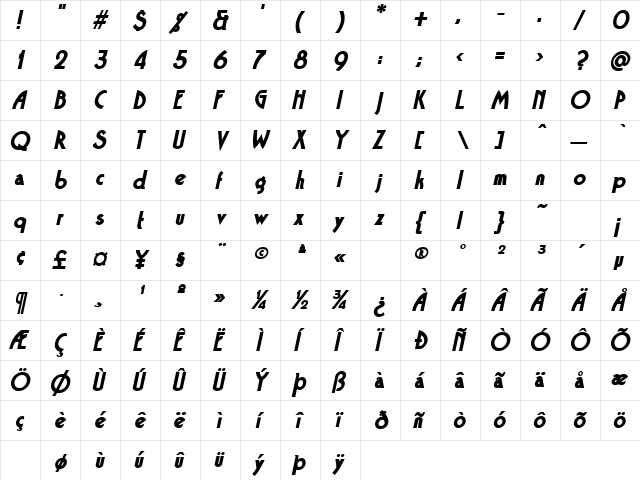
Bandstand BoldOblique
Bandstand offers clean, dependable letterforms without strong stylistic allegiance, making it a practical choice for designers who need flexibility. The slanted form adds forward momentum and visual energy. The heavy weight commands attention and anchors typographic hierarchies.
Pro Tip: Use Bandstand for emphasis, pull quotes, and subheadings where its slanted energy can add rhythm to the layout.